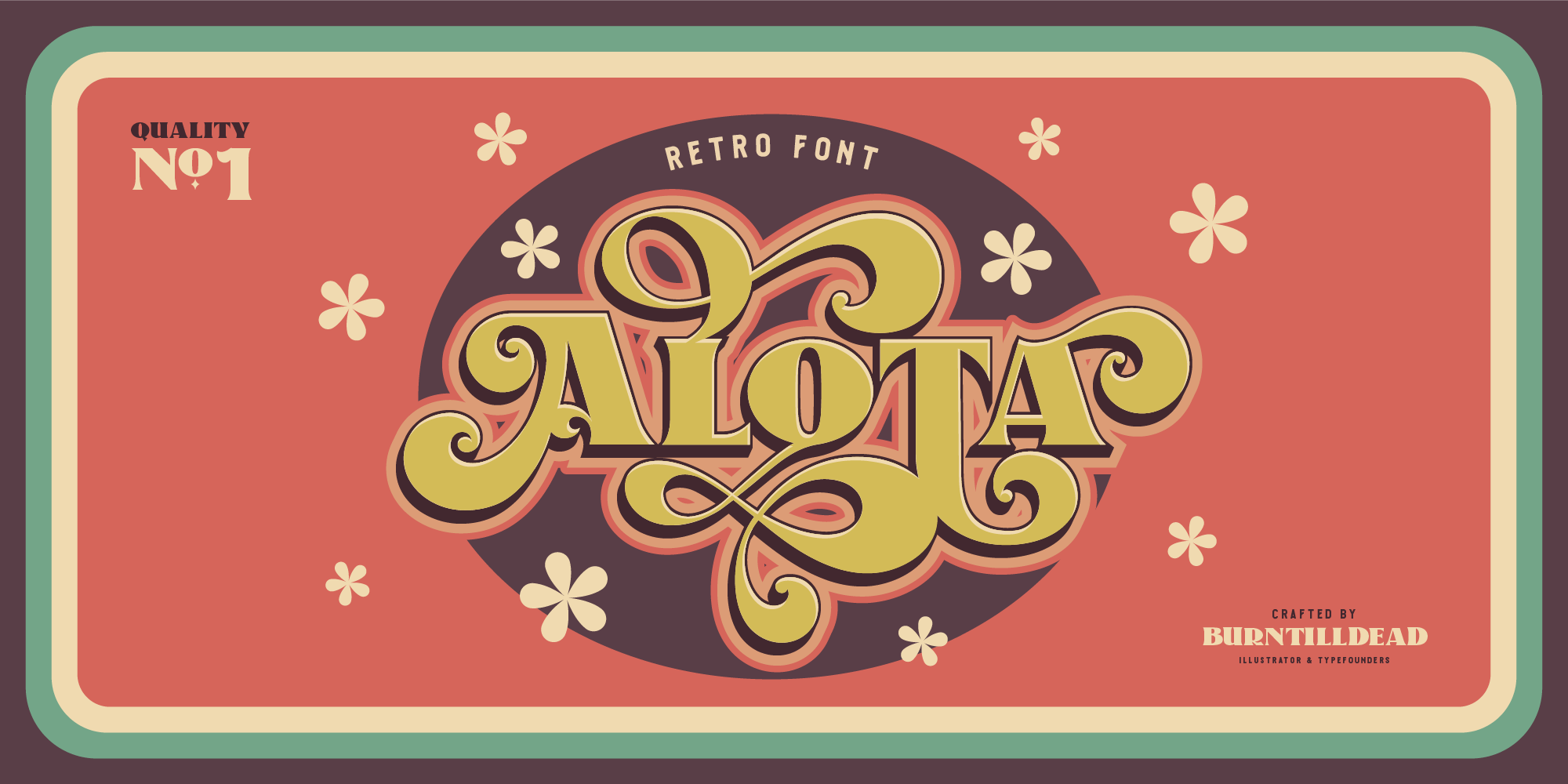
Alota Font is perfect for playful design projects including children's book illustrations, toy packaging, fun social media graphics, casual restaurant branding, craft store materials, birthday party invitations, colorful website headers, and youth-oriented marketing campaigns. This cheerful typeface excels in daycare center branding, ice cream shop signage, game applications, educational materials, and creative projects that need to convey joy and friendliness.
What makes Alota Font exciting is its vibrant personality that instantly brings warmth and happiness to any design project. The font features rounded letterforms with bouncy characteristics that create a sense of movement and energy. Its friendly appearance and approachable design make it perfect for connecting with audiences of all ages, especially when projects need to convey fun, creativity, and positive emotions. The carefully balanced proportions ensure excellent readability while maintaining its distinctive playful character.
Alota Font comes in multiple family variations including regular, bold, light, and extra bold weights. Each style maintains the joyful essence while offering different levels of visual impact and emphasis. The font family includes playful alternates, decorative elements, and special characters that allow designers to create truly engaging and dynamic typographic expressions.
Whether you're designing children's products, creating fun branding, or developing entertainment materials, Alota Font Free Download delivers exceptional charm for projects that celebrate creativity and joy. This delightful typeface transforms simple text into engaging visual experiences that capture attention and spread positivity. Download this wonderful font today and add infectious energy to your design projects with typography that makes people smile and feel genuinely happy.